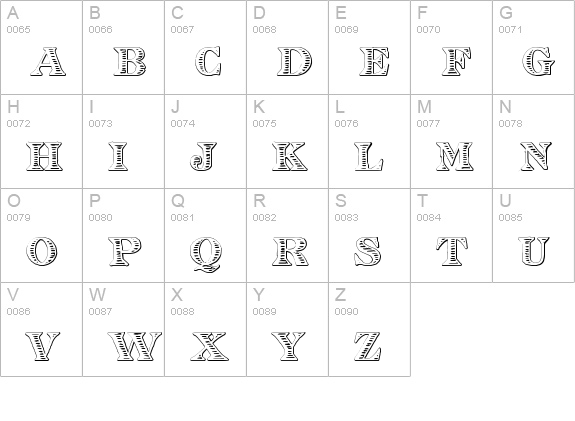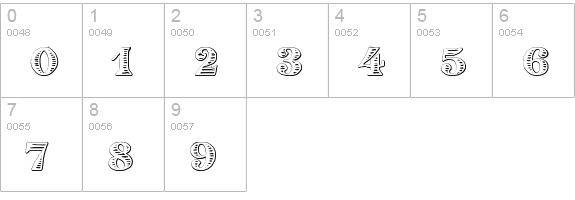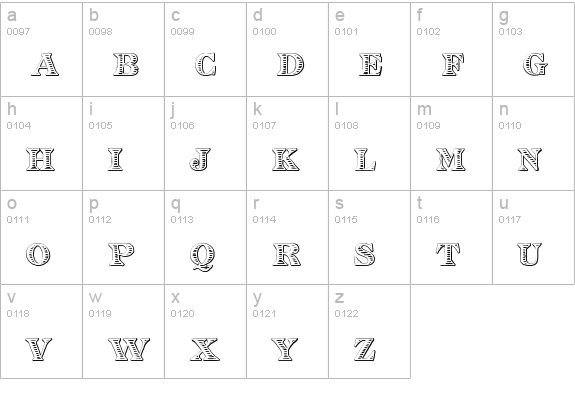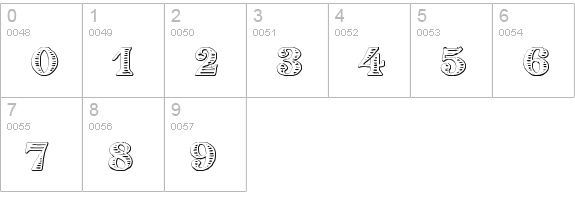
Eingraviert Beveled Font Details
Eingraviert Beveled is a stunning and sophisticated font that exudes elegance and craftsmanship. Its intricate beveled edges give it a unique and timeless appeal, making it perfect for adding a touch of luxury to any design project. With its clean lines and sharp angles, Eingraviert Beveled captures attention and demands admiration. Every letter is meticulously crafted to create a seamless flow and balance, resulting in a cohesive and harmonious visual experience. Whether used for branding, packaging, invitations, or any other creative endeavor, Eingraviert Beveled is sure to make a lasting impression. Its versatility lends itself to a wide range of styles, from vintage and retro to modern and contemporary. And the best part? Eingraviert Beveled is available for free! You can easily download it at FontsMarket.com, where you will find a vast selection of high-quality fonts to enhance your design projects. Don't miss out on the opportunity to elevate your designs with this remarkable font. So, why wait? Download Eingraviert Beveled today and let its beauty and sophistication elevate your designs to new heights.